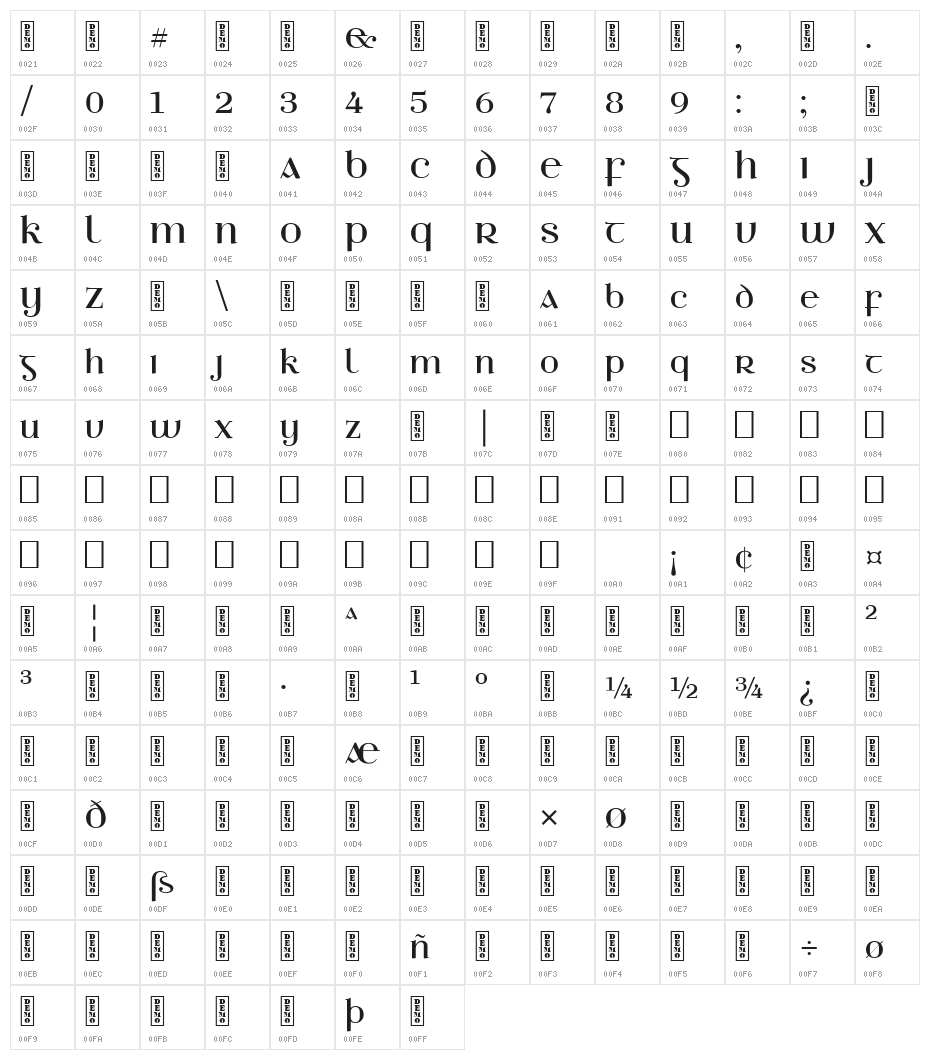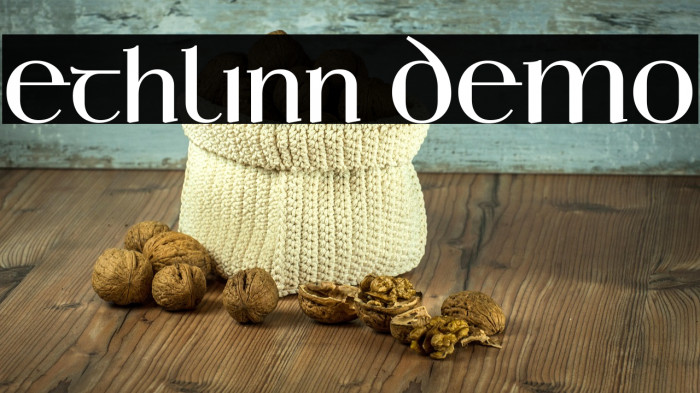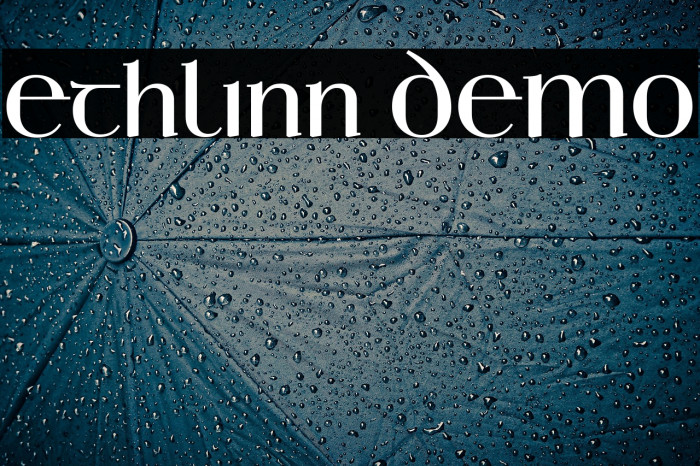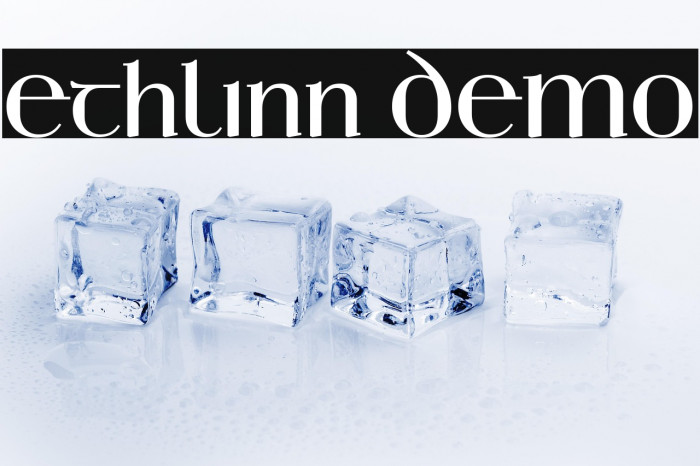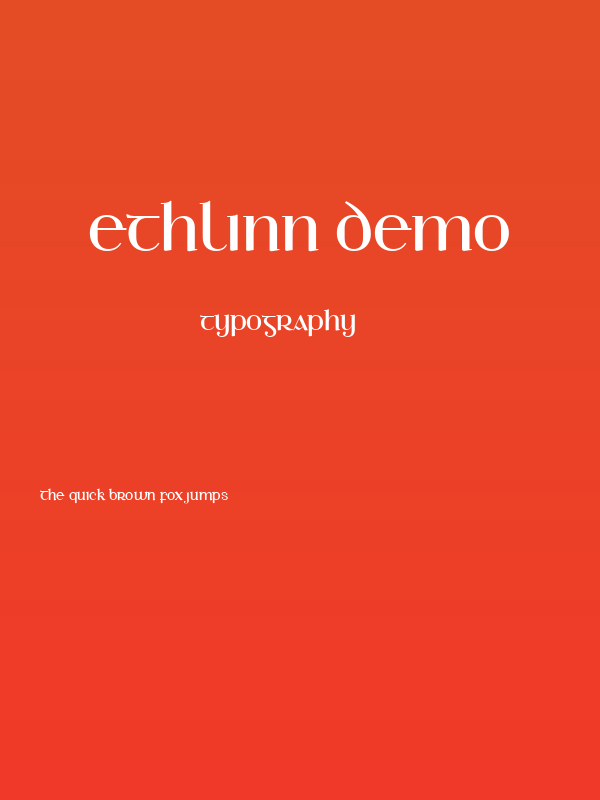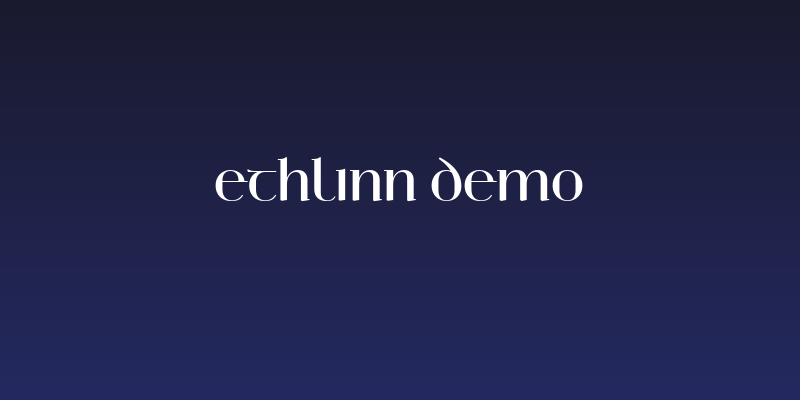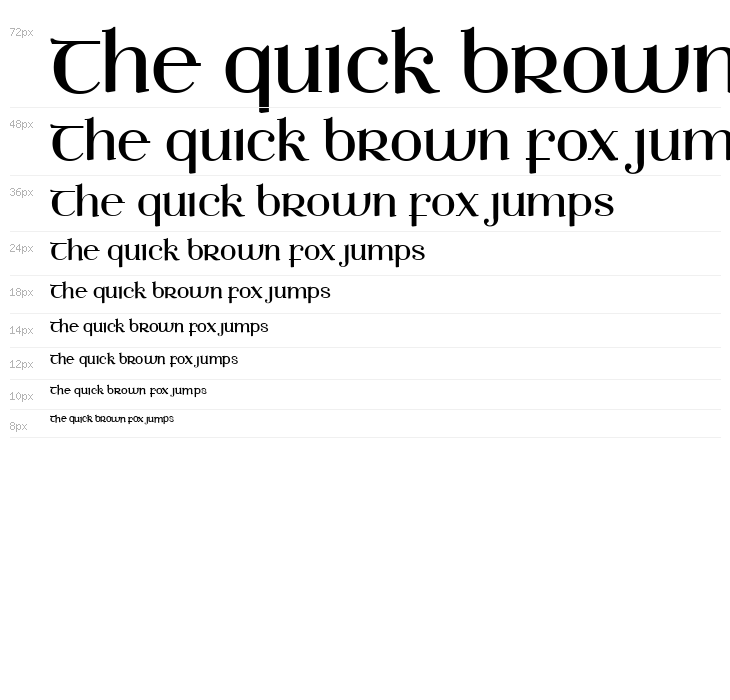
Ethlinn DEMO Font
Ethlinn DEMO Description
This font features a unique blend of modern and classic elements, characterized by its elegant and slightly ornate design. The letters have a distinct flair, with some characters showcasing subtle curves and flourishes that add a touch of sophistication. The uppercase letters are bold and commanding, while the lowercase letters maintain a consistent style with a slight variation in stroke width. The numerals are clear and legible, complementing the overall aesthetic. Special characters like the ampersand and hash symbol are designed with artistic flair, making them stand out. This font is versatile, suitable for both digital and print media, and can be used to create a striking visual impact.